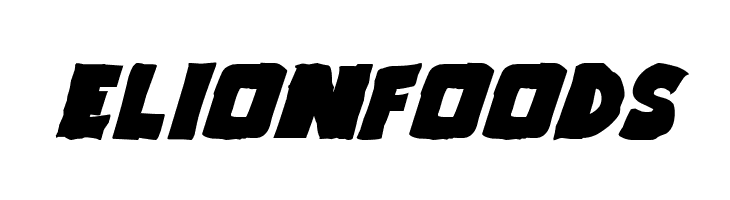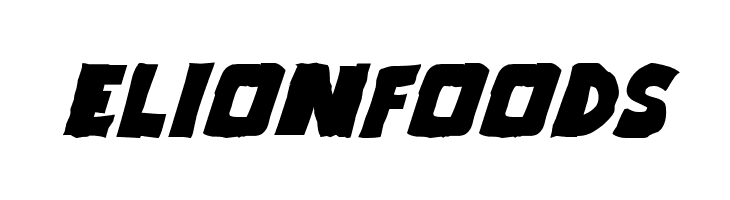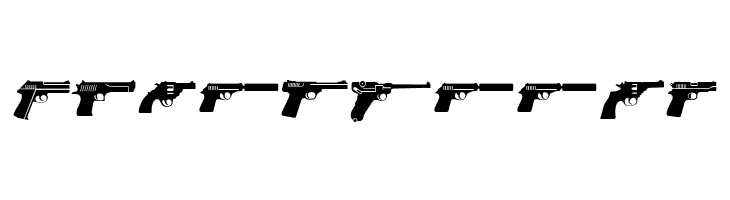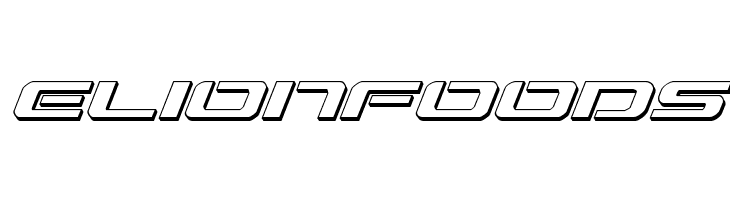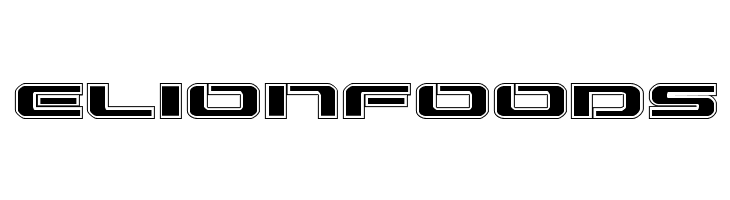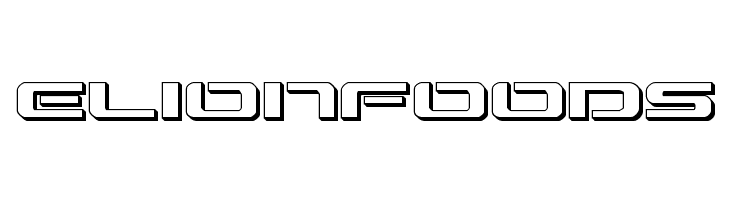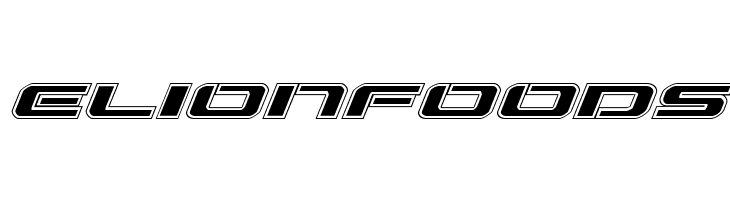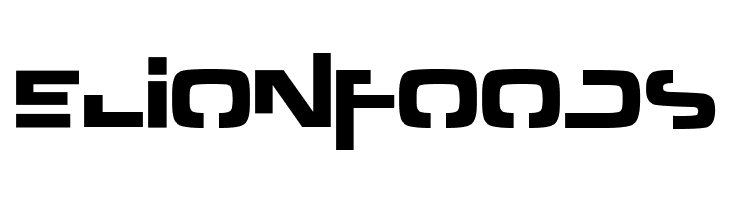
• Outer zone
A futuristic, geometric font with bold, angular shapes and a modern aesthetic.
• Outgunned
A display font made of weapon silhouettes instead of standard characters.
• outlander
A bold, hand-crafted font with a rugged, artistic style.
• Outlander Bold Italic
A bold, italic font with a dynamic and edgy style.
• Outlander Bold Italic
• Outlander Italic
A bold, dynamic italic font with a rugged, adventurous style.
• Outrider 3D Italic
A bold, 3D italic font with a futuristic and dynamic style.
• Outrider 3D Regular
A bold, futuristic font with a 3D outline effect and geometric design.
• Outrider Academy Italic
A bold, italicized font with a futuristic, outlined style.
• Outrider Academy Regular
A bold, futuristic font with geometric outlines and a three-dimensional effect.